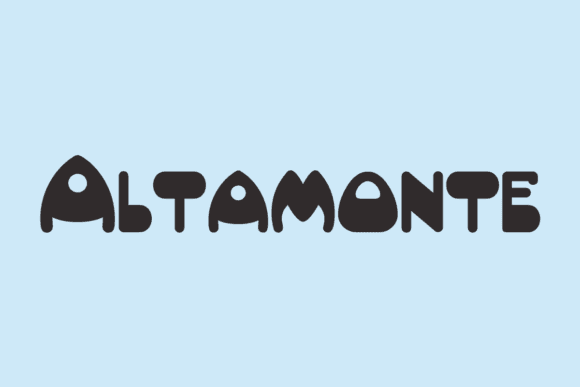
Altamonte Font for Headlines, Posters and Branding Projects
Altamonte is a modern display typeface built to stand out in large-format designs. Whether you're crafting editorial layouts, branding packages, or promotional graphics, Altamonte offers sharp lines and a commanding presence. Its versatility makes it an ideal choice for both print and digital applications. In addition to its striking appearance, the baltic coast font features unique character styling that elevates any project it complements. Whether you're aiming for a bold statement or a subtle elegance, Altamonte delivers exceptional readability and artistic flair.
This font entity merges contemporary style with functional readability, making it perfect for both digital and print environments. Its versatility supports creative teams across fashion, tech, publishing, and event branding.
Altamonte brings structured elegance to any visual system that needs confident typography.
- Magazine covers and headline spreads
- Brand identity kits and logo systems
- Event flyers, posters, and banners
- Digital campaigns and product launches
- Professional signage and storefront graphics
- High-impact style with sleek geometry
- Perfectly suited for headlines and branding
- Clear readability in both print and digital
- Professional look with creative flexibility
Q: What kind of font is Altamonte?
A: Altamonte is a bold display typeface designed for headline use, branding materials, and large-scale print work. Its strong presence and distinctive letterforms make it ideal for capturing attention in any visual context. The anditha latufa font features elegant curves that complement the robust geometry of Altamonte, adding a unique touch to various design projects. This versatility allows designers to mix and match styles while maintaining a cohesive look.
Q: Is it good for large printed graphics?
A: Yes, Altamonte is optimized for strong legibility and presence in posters, signs, and other big layouts.